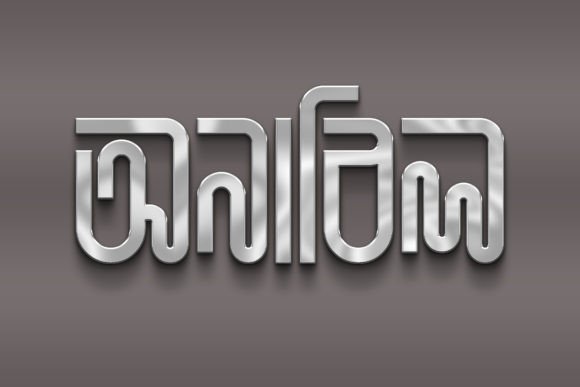
The Power of Beautiful Typography: Unveiling Anabil (অনাবিল বাংলা ফন্ট)
Have you ever been inspired by a beautifully crafted title or logo, and suddenly felt motivated to create something amazing of your own? I’m sure we’ve all been there. For designers, typography is a vital part of bringing ideas to life, and a great font can make all the difference. That’s why we’re excited to introduce you to Anabil (অনাবিল বাংলা ফন্ট), a sophisticated Bangla sans-serif font designed for industrial-quality applications.
Anabil (অনাবিল বাংলা ফন্ট) Font is perfect for enhancing titles, book covers, T-shirt designs, websites, and mobile apps, making it an invaluable tool for designers working with Bangla language content. With its extensive character set, including 424 glyphs and 196 unique characters, Anabil offers unparalleled flexibility and precision. Whether you’re a seasoned pro or just starting out, this font is sure to elevate your designs and help you stand out from the crowd.
Anabil (অনাবিল বাংলা ফন্ট) Font Key Features
- Font Family: Anabil is a Bangla font family, designed to provide a clear and legible reading experience for Bangla language users.
- Unique Characteristics: Anabil font features a unique blend of traditional and modern design elements, providing a distinctive look and feel that is both elegant and readable.
Anabil (অনাবিল বাংলা ফন্ট) Font Review
Overall, I think Anabil is a solid choice for Bangla typography. Here are some things that work well:
- ✨ It has a clean and modern design that looks great on digital screens.
- ✨ The font is highly legible, even at smaller sizes.
- ✨ It supports a wide range of languages, including Bangla, which is great for multi-language projects.
- ✨ The font is highly customizable, with a range of font styles and weights available.
However, there are some limitations to keep in mind:
- ⚠️ The font is not as versatile as some other Bangla fonts, and may not work well in certain contexts (e.g. print media).
- ⚠️ The font’s design can feel a bit generic, and may not stand out in a crowded market.
Overall, I think Anabil is a good choice for Bangla typography, but it’s not without its limitations. With careful consideration and use, it can be a valuable addition to any project.
Tips for Getting the Most Out of Anabil Font
Here are some tips for getting the most out of Anabil font:
- Use Anabil font for Bengali language texts to create a unique and authentic look.
- Combine Anabil font with other fonts to create a visually appealing contrast.
- Experiment with different font sizes and colors to create a professional look.
Anabil font is commonly used for:
- Bengali language texts, such as books, magazines